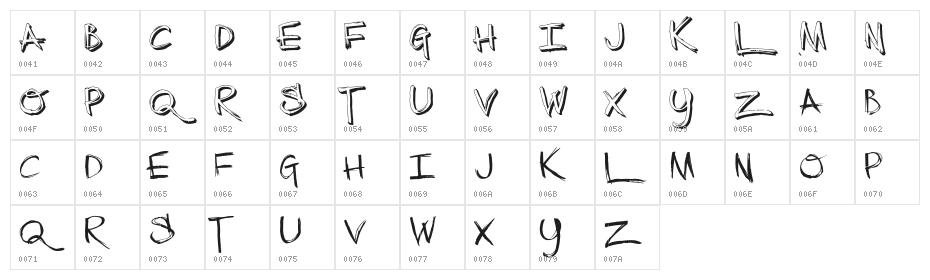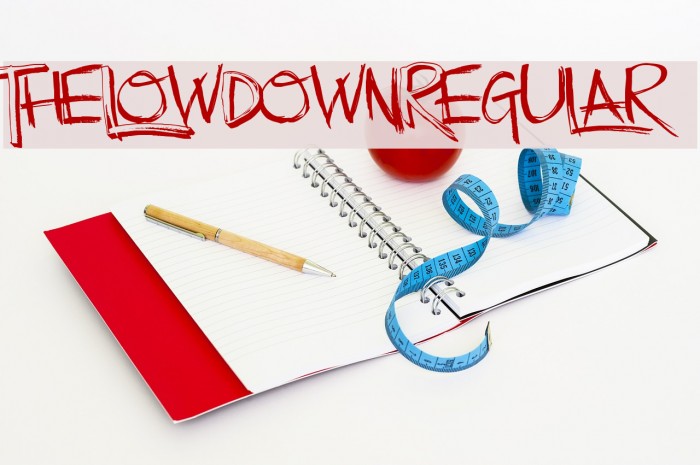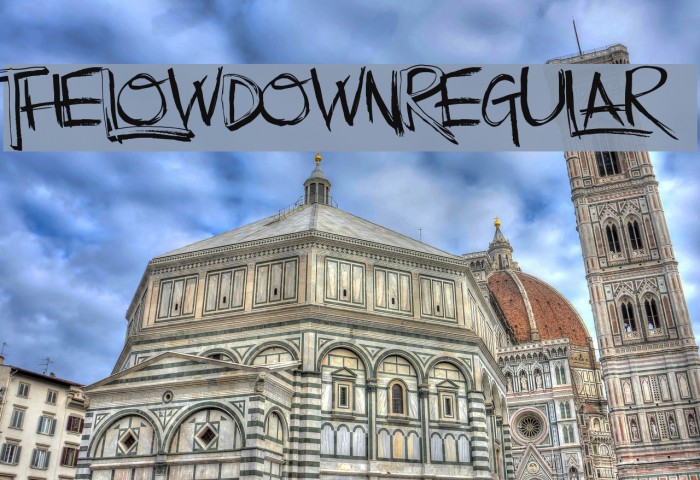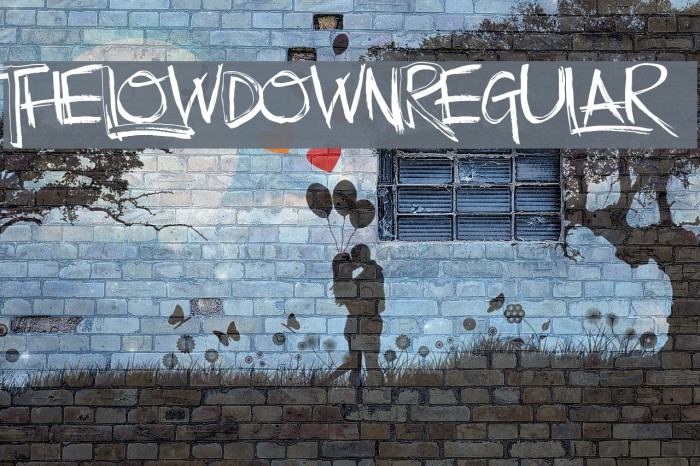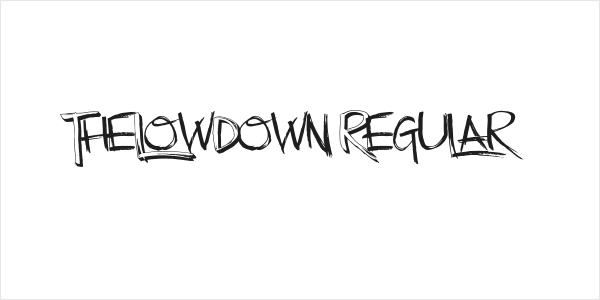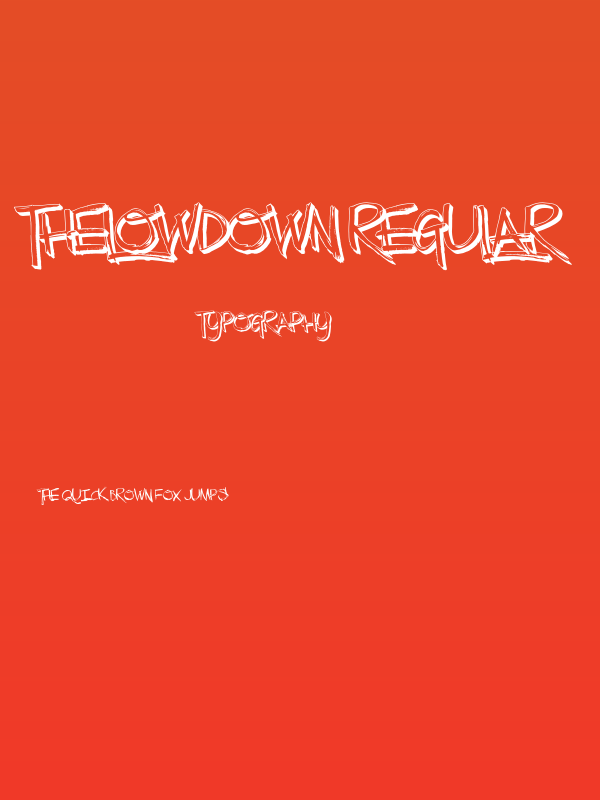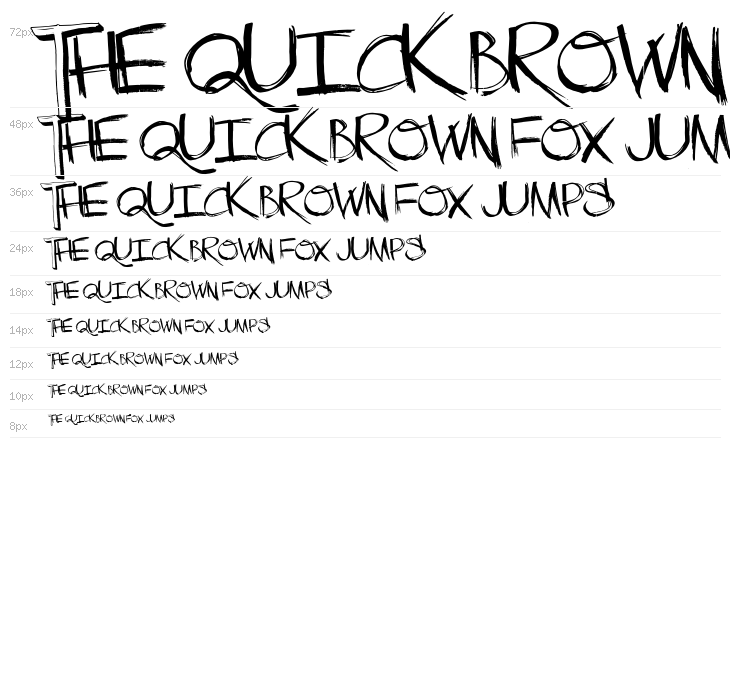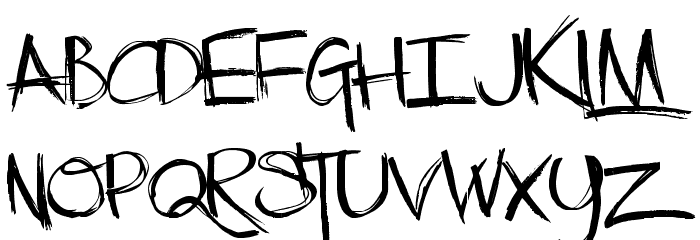
TheLowDown-Regular Font
TheLowDown-Regular Description
This font features a bold and expressive style with a hand-drawn appearance. The letters are characterized by thick, uneven strokes that give a dynamic and energetic feel. The uppercase and lowercase letters maintain a consistent style, with some letters having exaggerated curves and angles. The overall look is reminiscent of graffiti or street art, making it stand out with its unique flair. The font includes a full set of uppercase and lowercase letters, numbers, and a selection of special characters, all maintaining the same artistic style.
| Overall Style | Modern, Urban |
| Proposed Projects | Ideal for projects that require a bold and artistic touch, such as posters, album covers, streetwear branding, or urban-themed designs. |